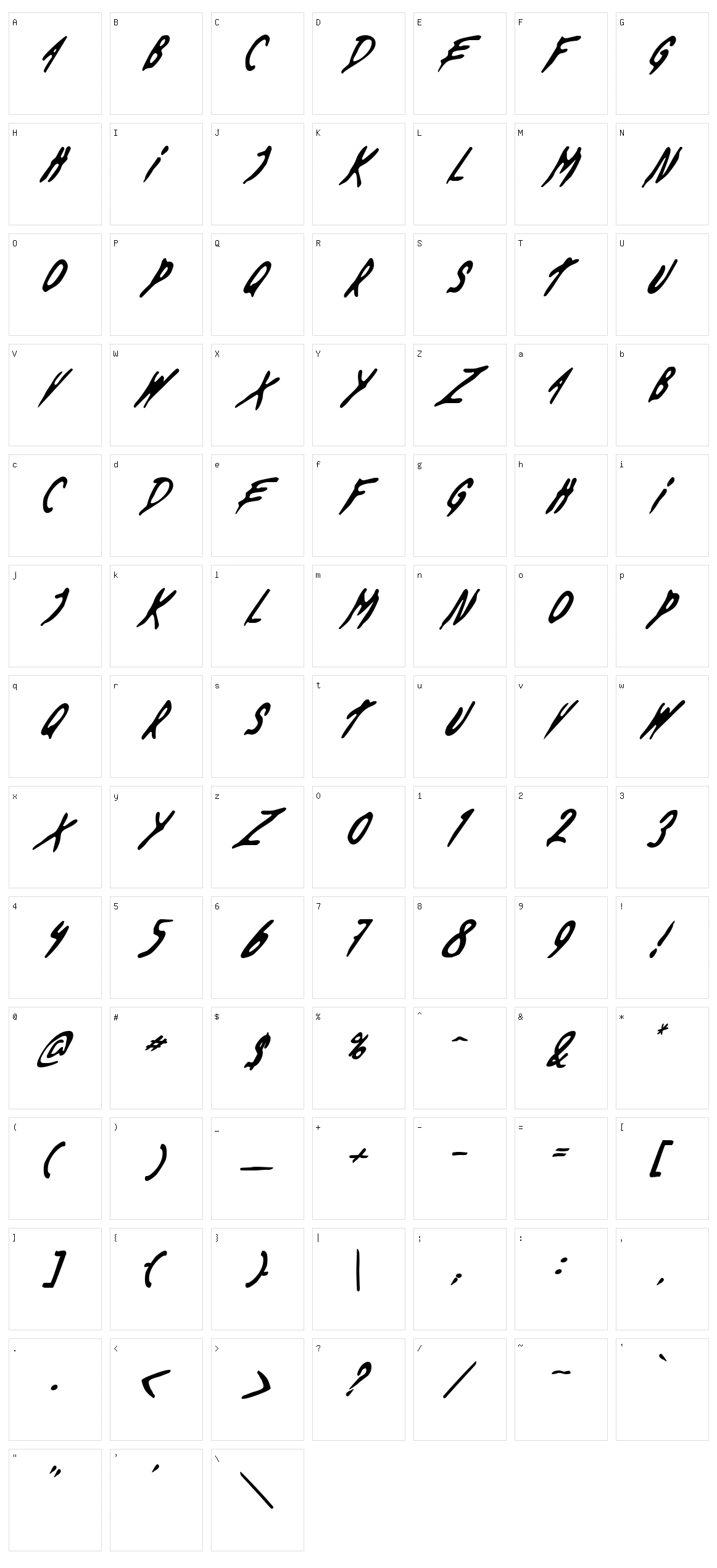
The free font Evil Deas by Dawn US is carefully designed by Daniel Goulart Araujo, showcasing a thoughtful balance of creativity and usability and falls under the Trash font style. When you download the ZIP file, it contains only 32.14 KB of font files, making it lightweight and quick to download. Please review the license details below to understand permitted usage and distribution rights. If license information is not available, we recommend using this font for personal projects only or contacting the author directly for commercial usage permissions.